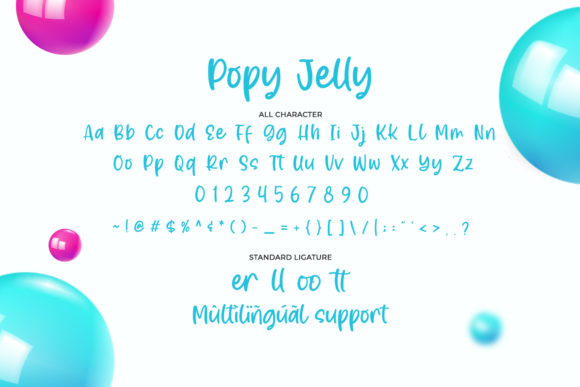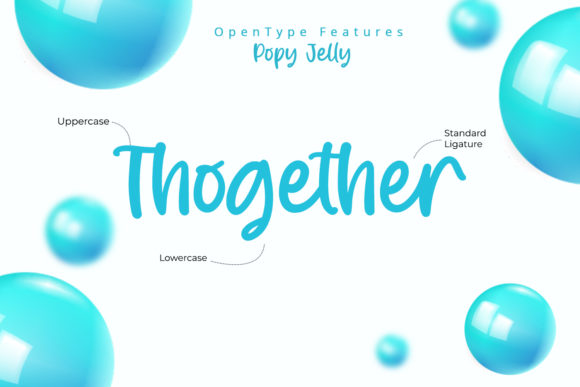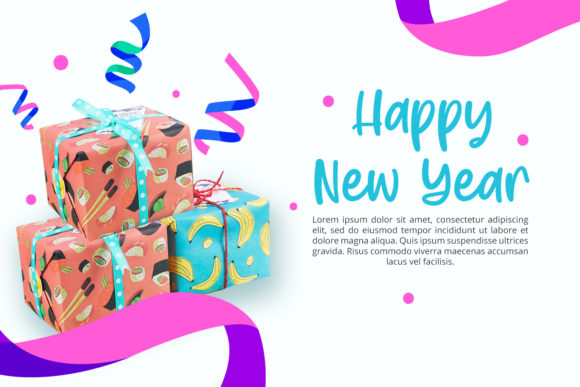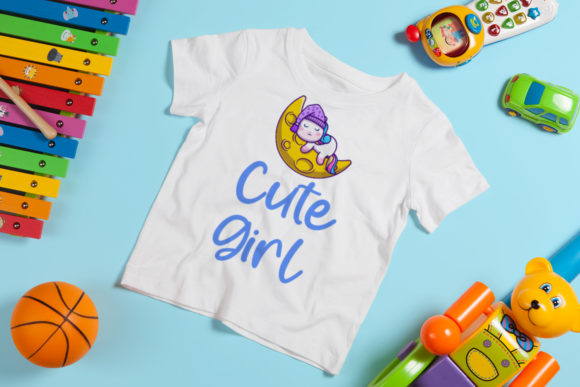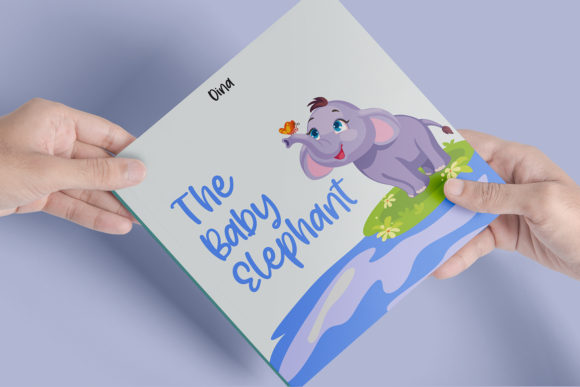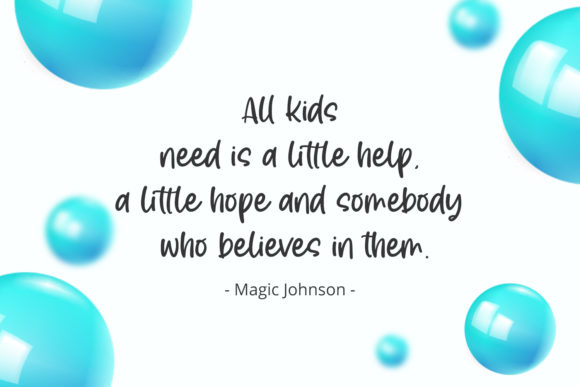
Introduction to Popy Jelly Font
Have you ever found yourself staring at a blank canvas, struggling to bring your creative vision to life? The blank page can be daunting, but with the right design resource, anything is possible. For designers looking to add a personal touch to their projects, the Popy Jelly Font is a game-changer.
Imagine being able to create beautiful, high-quality designs with ease, from wedding invitations to logos and beyond. The Popy Jelly Font offers a elegant handwritten style that’s perfect for any creative project. With its versatility and sophistication, it’s no wonder this font has become a favorite among designers.
Popy Jelly Font
- High-quality font design for creative projects, ideal for digital art and graphic design.
- Includes a range of characters, including uppercase and lowercase letters, numbers, and special symbols.
- Designed with a unique, jelly-like aesthetic, adding a creative touch to any design project.
Honest Review: Popy Jelly Font
What works well is its versatility – it’s suitable for a variety of design projects, from digital art to print materials. The font is also available in various styles and weights, making it easy to experiment and find the perfect look for your project.
One of the standout features of the Popy Jelly Font is its transparent background, which allows for seamless integration with any design. This makes it a great option for designers looking for a high-quality font that won’t compromise their design.
- ✨ Versatility in design projects
- ✨ Suitable for digital and print materials
- ✨ Various styles and weights
- ⚠️ Limited customization options
- ⚠️ Not ideal for extremely complex designs
Overall, I’m thoroughly impressed with the Popy Jelly Font. Its high quality and ease of use make it a valuable resource for designers. I’ve already incorporated it into several of my projects, and I’m sure it’ll continue to be a go-to choice for me in the future.
Popy Jelly Font
Popy Jelly Font is a high-quality, free design resource perfect for creative projects that require a unique and playful touch. This versatile font features a transparent background, making it easy to use in various design applications.
To get the most out of Popy Jelly Font, experiment with different font sizes, colors, and combinations. Use the font in conjunction with other design elements, such as graphics and images, to create a visually appealing design.
Popy Jelly Font is ideal for a variety of creative projects, including: